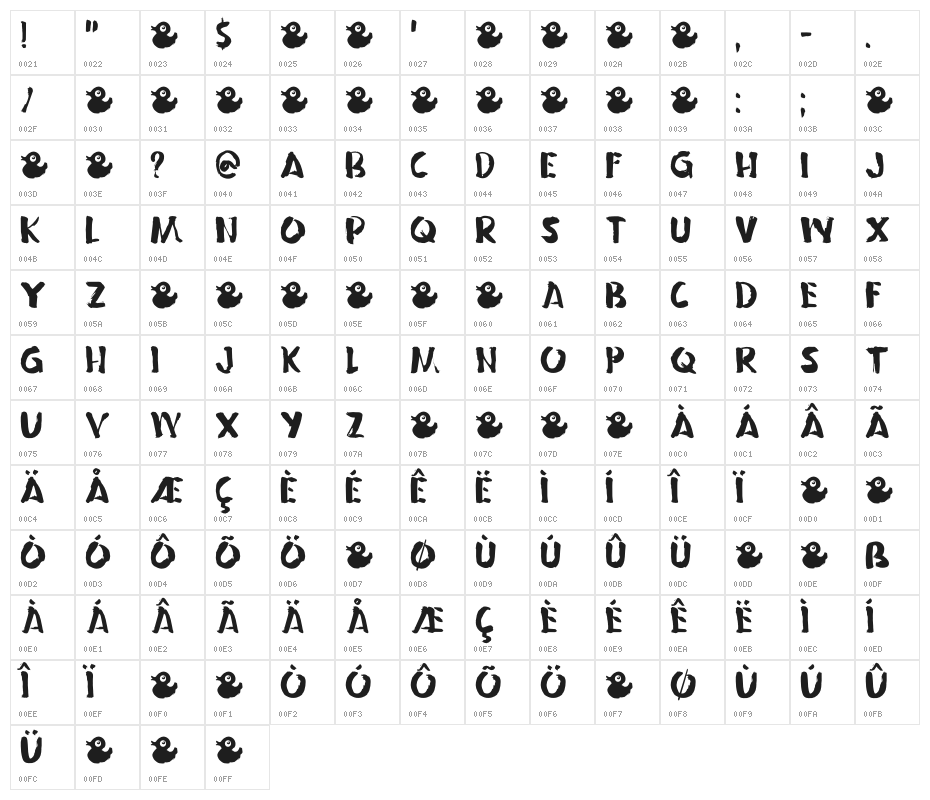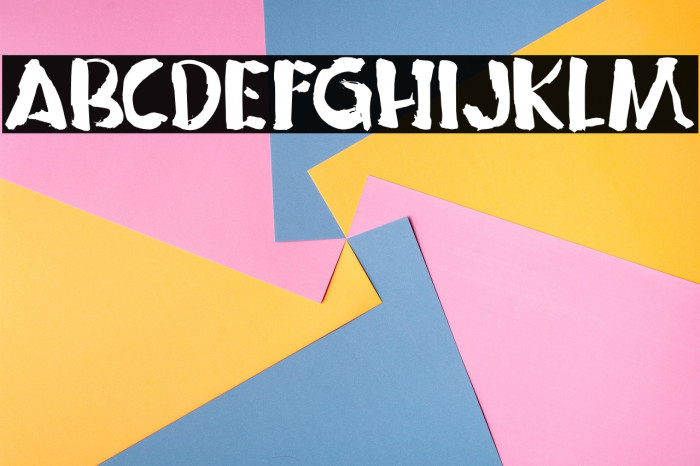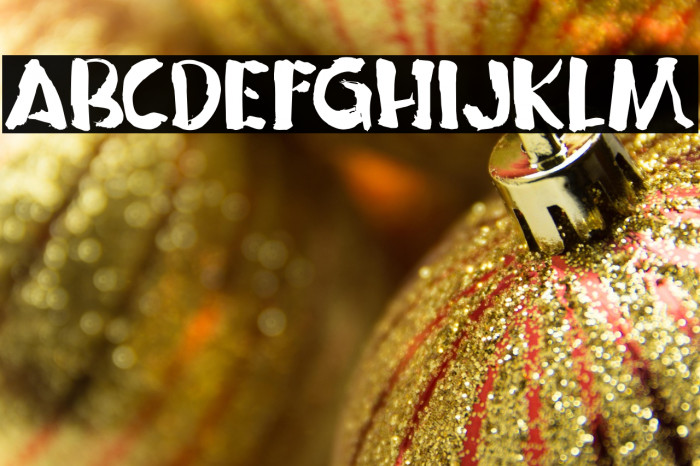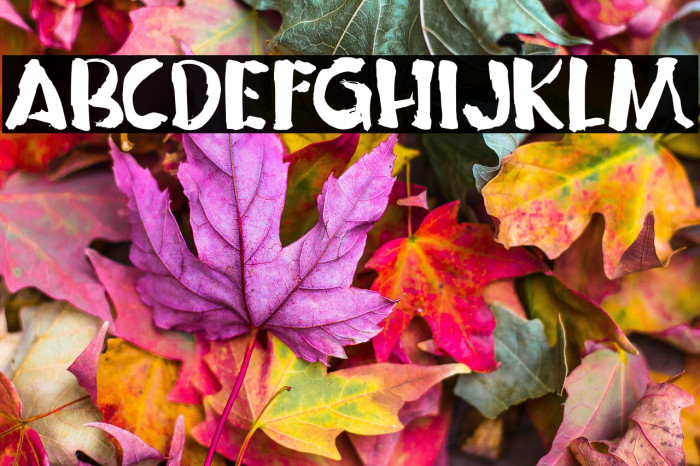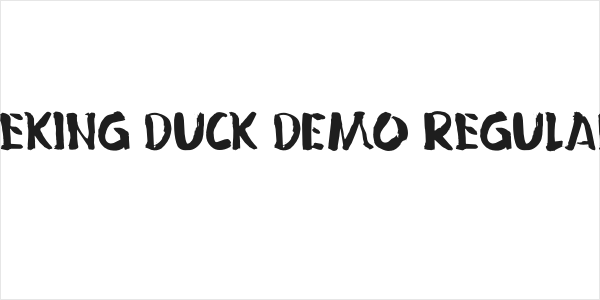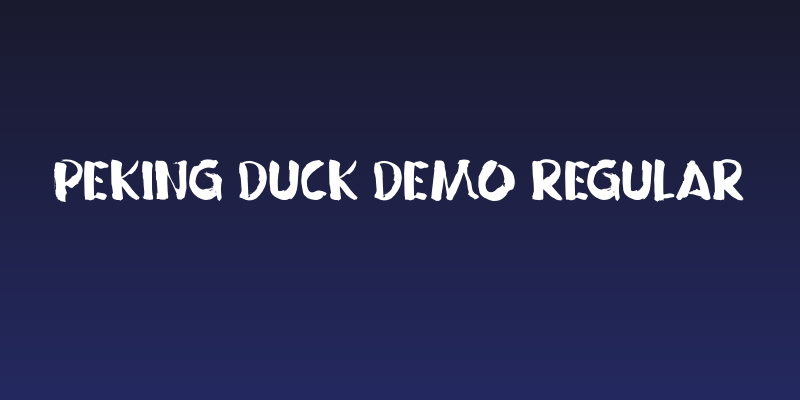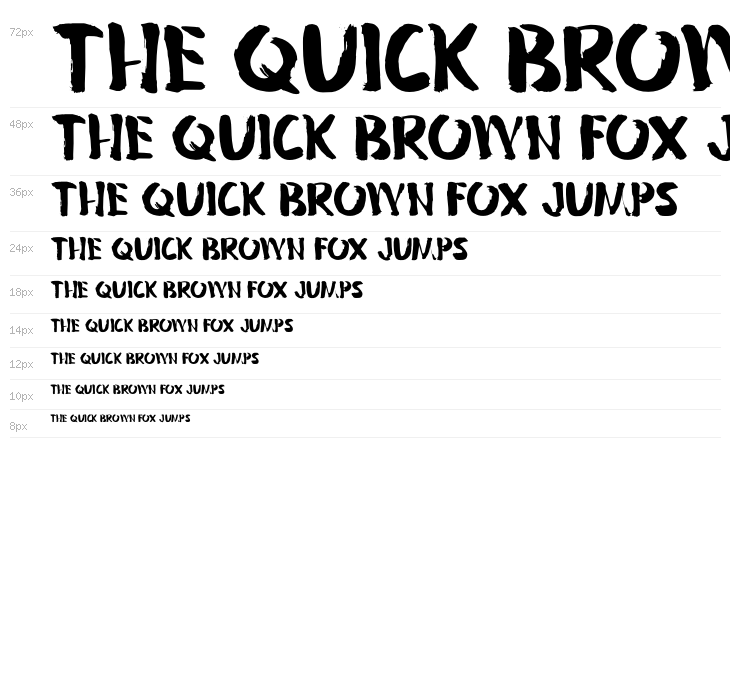
Peking Duck DEMO Regular Font
Peking Duck DEMO Regular Description
This font features a bold, brushstroke style that conveys a sense of dynamic movement and artistic flair. The characters are crafted with irregular edges and varying thickness, giving them a hand-painted appearance. The uppercase and lowercase letters maintain a consistent style, with a playful and slightly chaotic feel. The inclusion of duck icons as special characters adds a whimsical touch, making the font suitable for creative and informal projects. The overall aesthetic is both bold and expressive, capturing attention with its unique and lively design.
| Overall Style | Artistic, Playful |
| Proposed Projects | Ideal for creative projects such as posters, children's books, playful branding, and artistic invitations. |